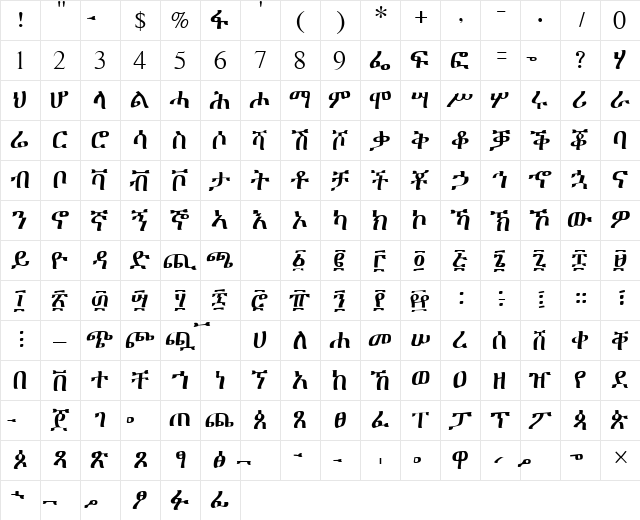
GeezTimesSSK Regular
Design Context for GeezTimesSSK Typeface
GeezTimesSSK offers clean, dependable letterforms without strong stylistic allegiance, making it a practical choice for designers who need flexibility.